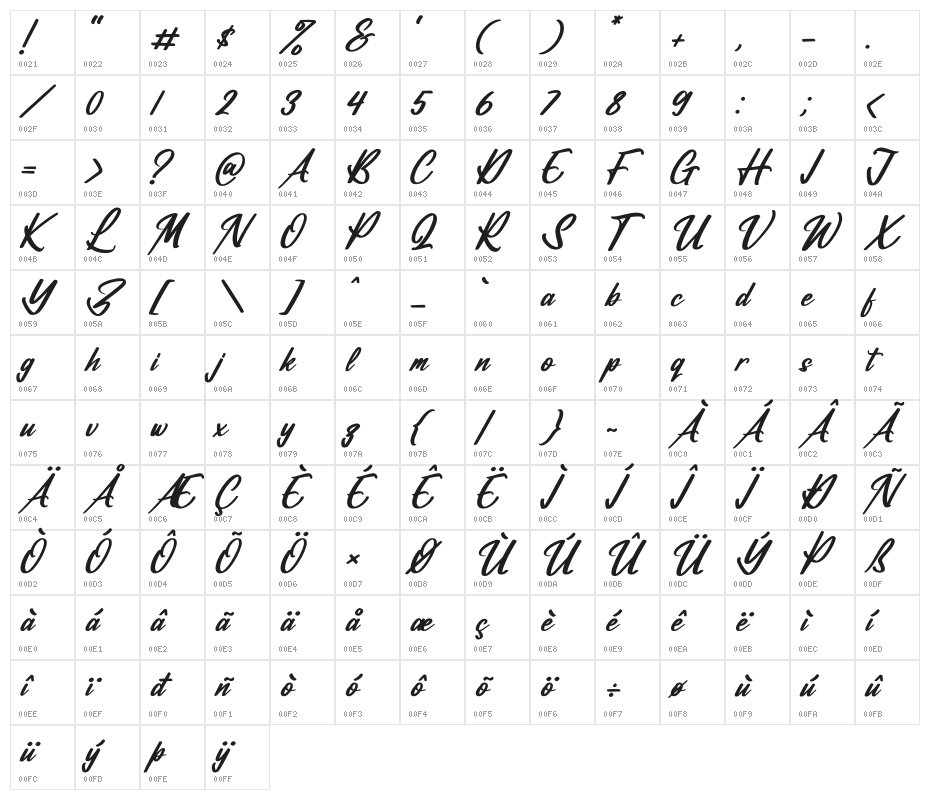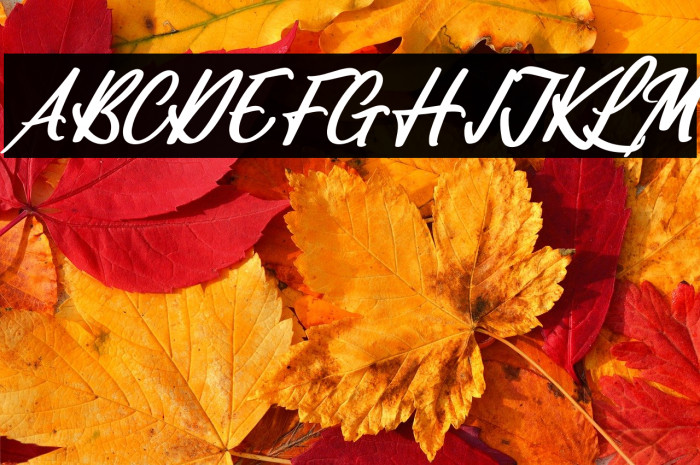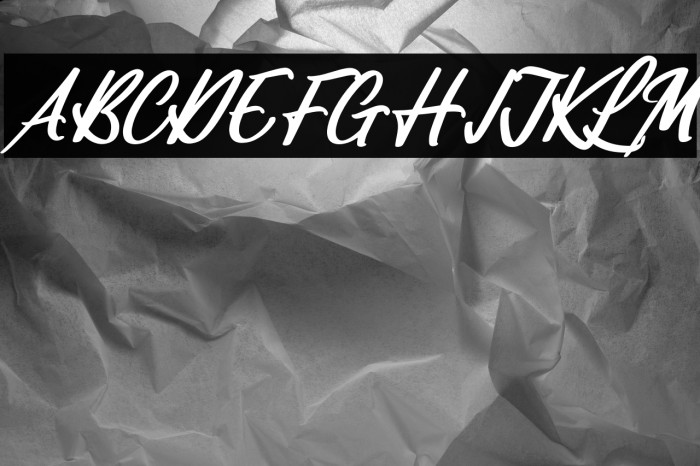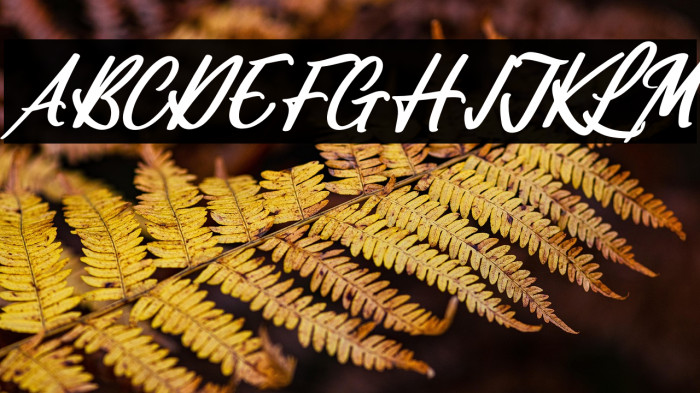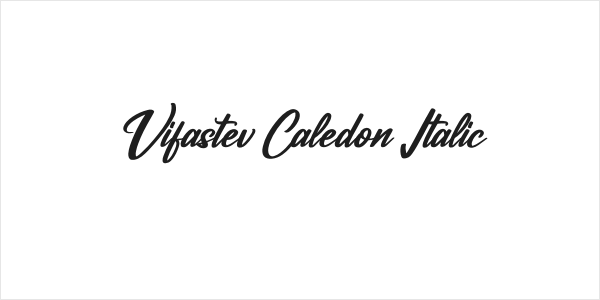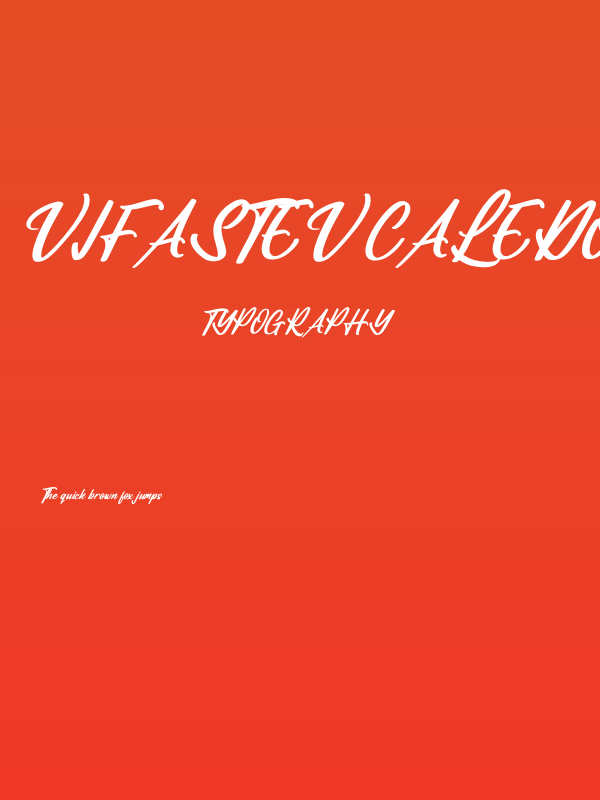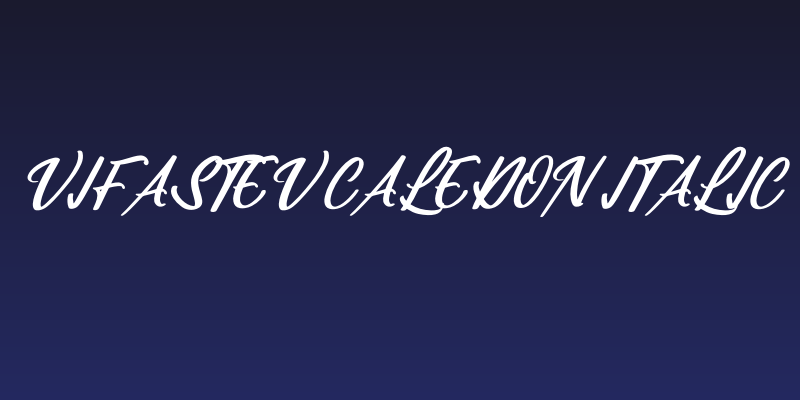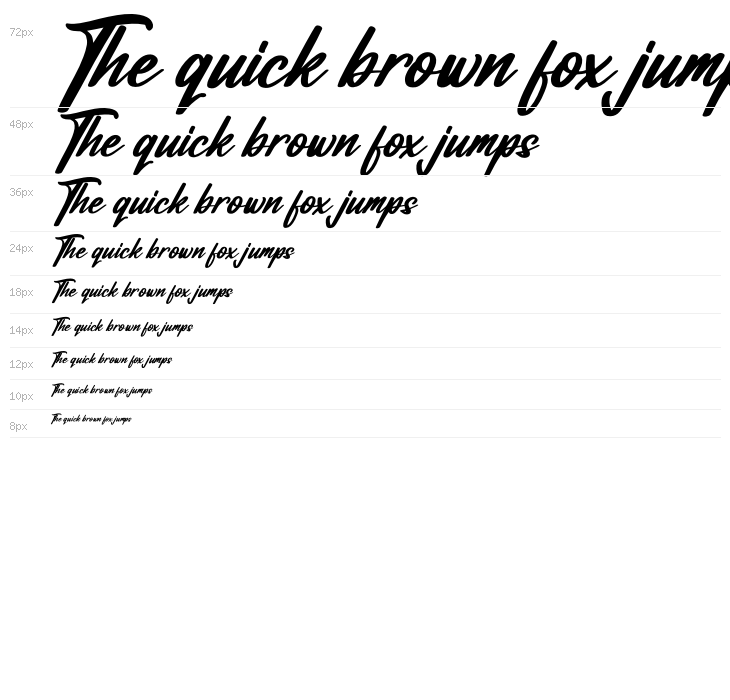
Vifastev Caledon Italic Font
Vifastev Caledon Italic Description
This font features a dynamic and flowing script style, characterized by its elegant, cursive letterforms. The strokes are smooth and connected, giving it a handwritten appearance that is both stylish and sophisticated. The uppercase letters are bold and prominent, while the lowercase letters maintain a consistent flow, enhancing readability. The numerals and special characters are crafted with the same fluidity, ensuring a cohesive look across all text. This font's italic nature adds a sense of motion and grace, making it suitable for creative and expressive designs.
| Overall Style | Elegant, Handwritten |